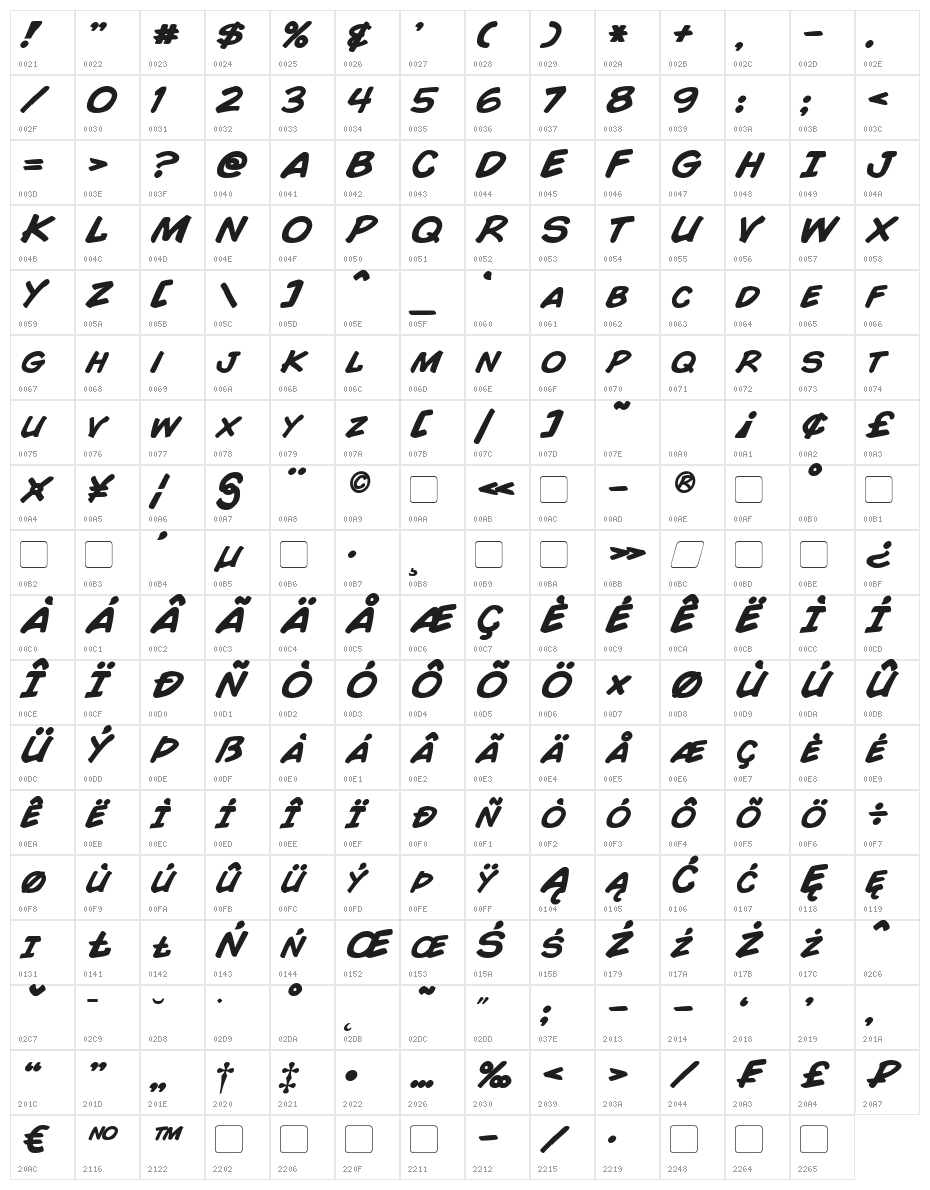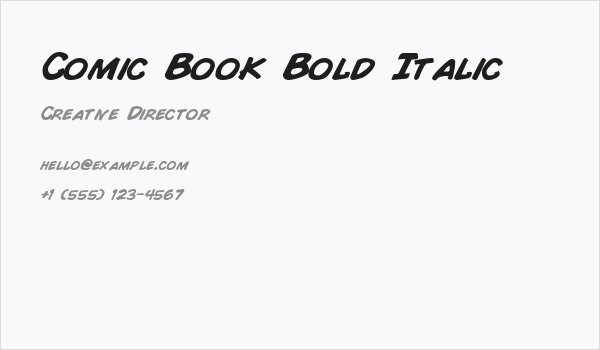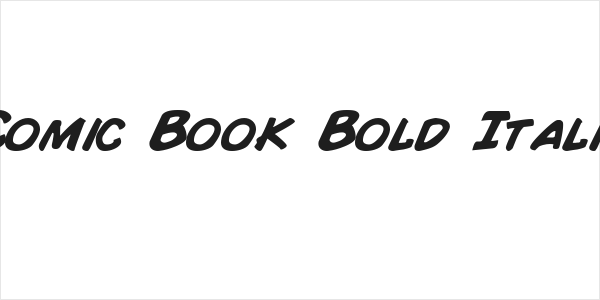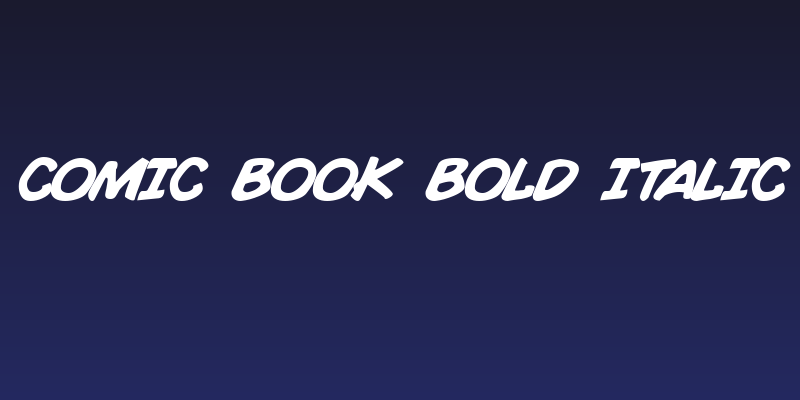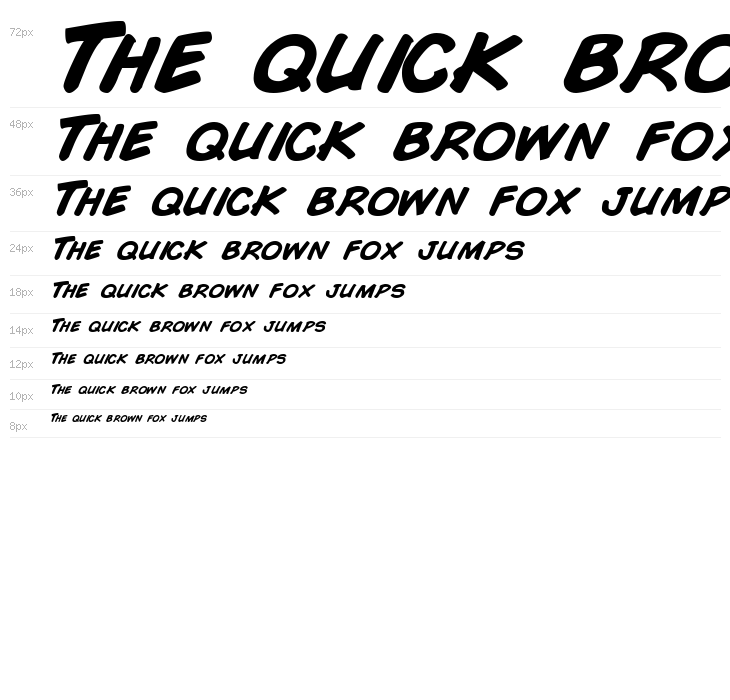
Comic Book Bold Italic Font
Comic Book Bold Italic Description
This font exudes a playful and dynamic energy, characterized by its bold and italicized style. The letters are thick and rounded, giving a sense of movement and excitement. The strokes are consistent in their boldness, creating a uniform appearance across all characters. The italic slant adds a sense of urgency and action, reminiscent of comic book lettering. This style is perfect for capturing attention and conveying a lively, informal tone. The numbers and special characters maintain the same bold and energetic style, ensuring consistency throughout.
| Overall Style | Playful, Energetic, Comic |
| Proposed Projects | Ideal for comic books, children's books, playful branding, and eye-catching posters. |